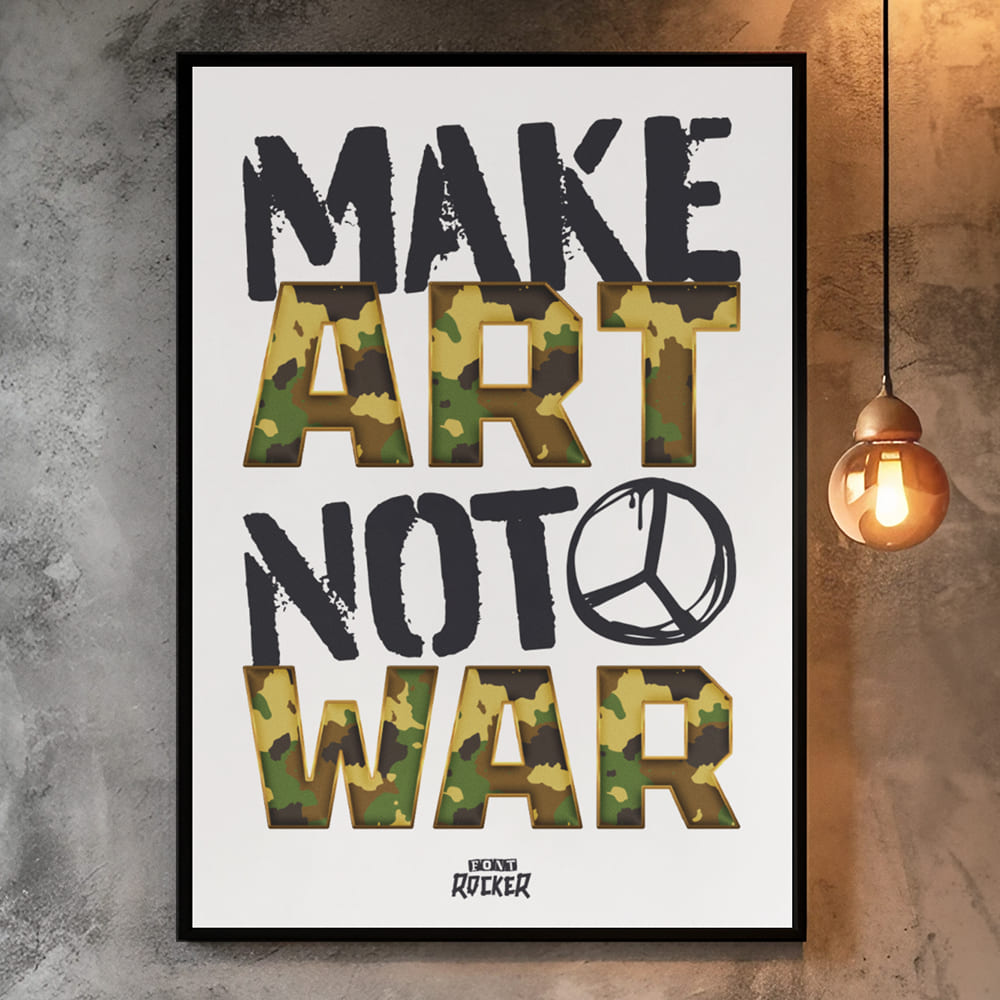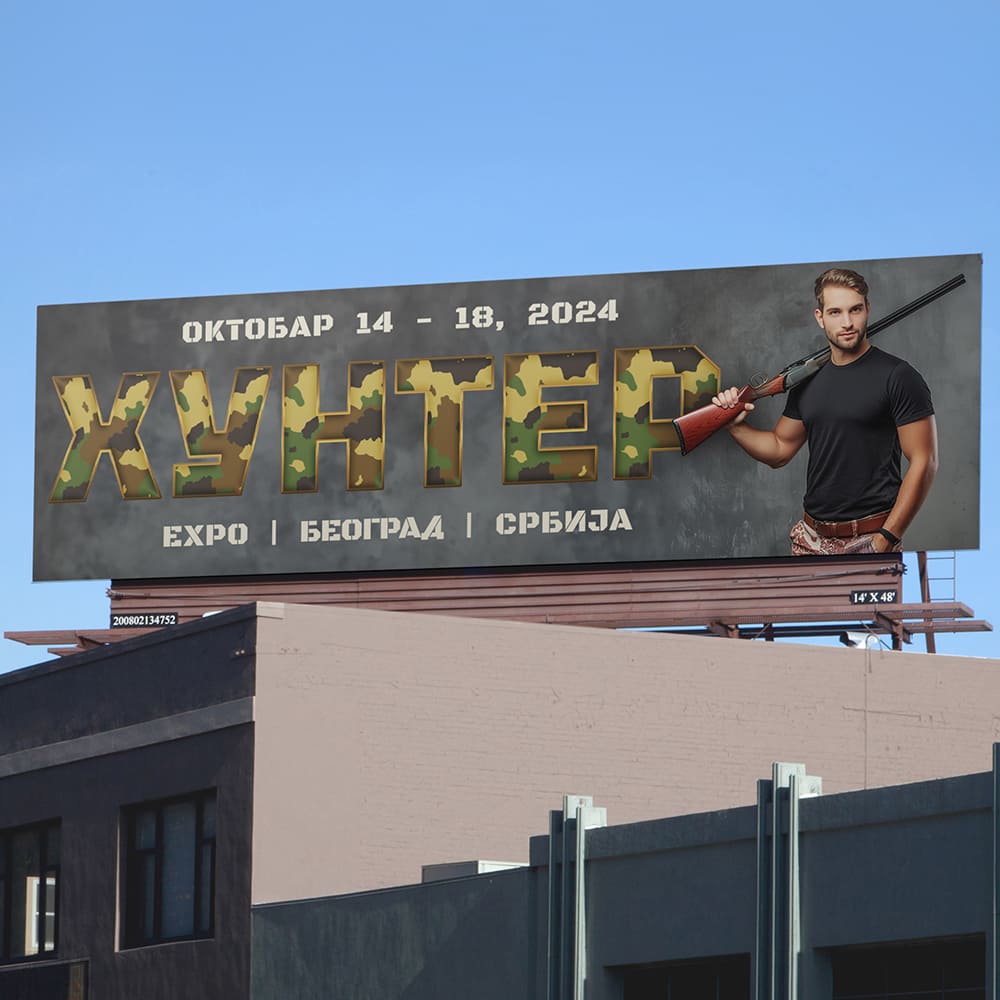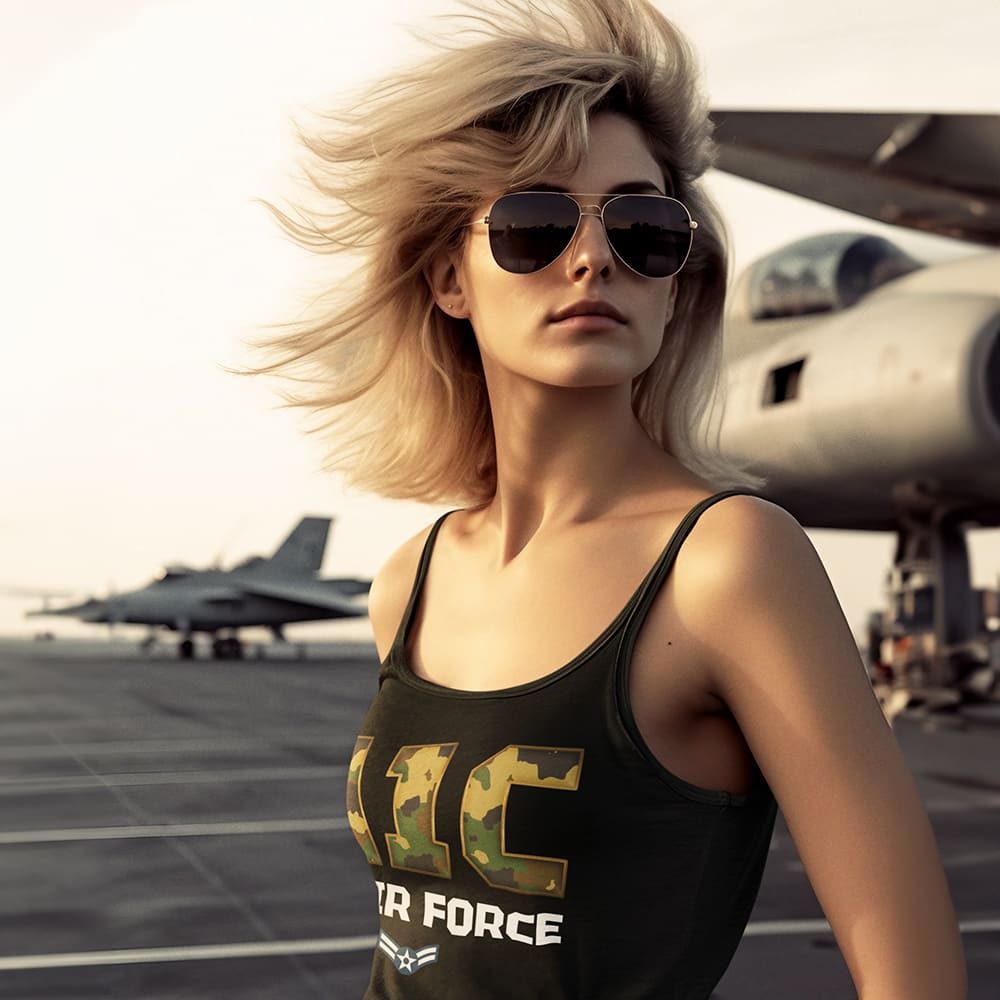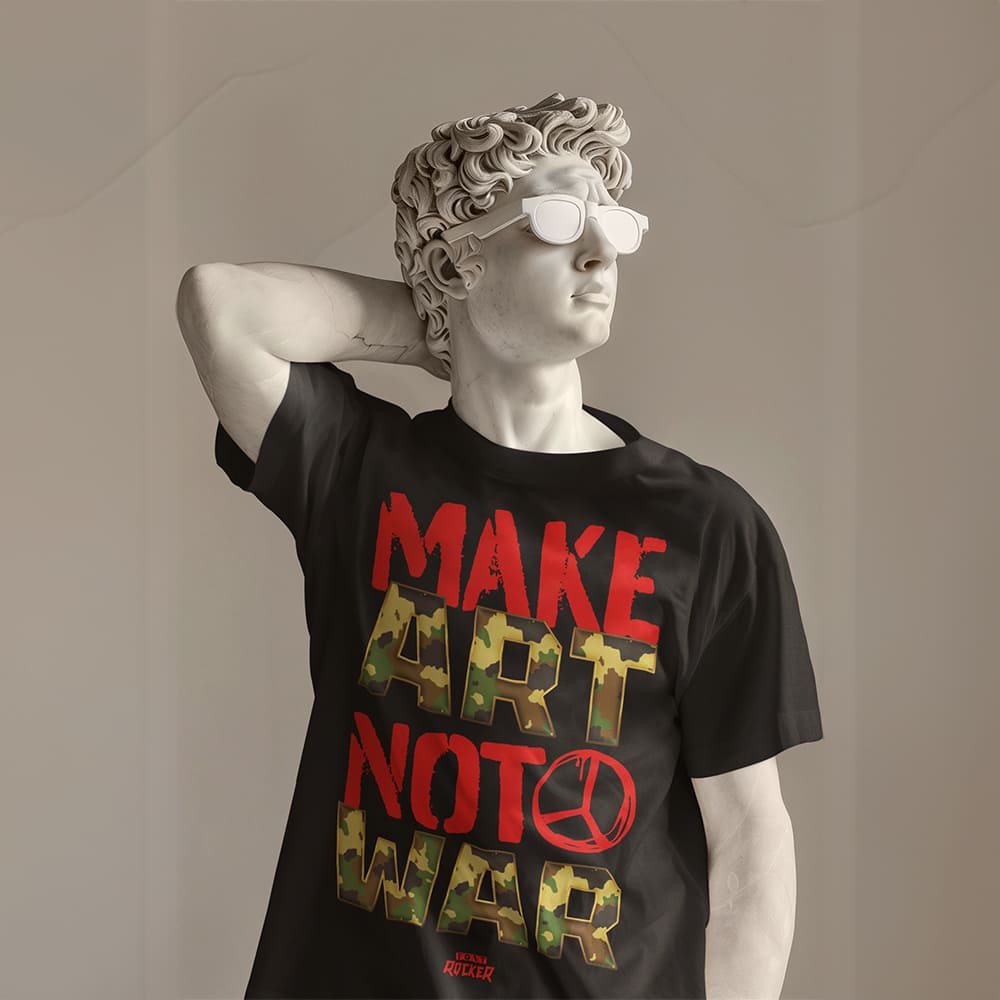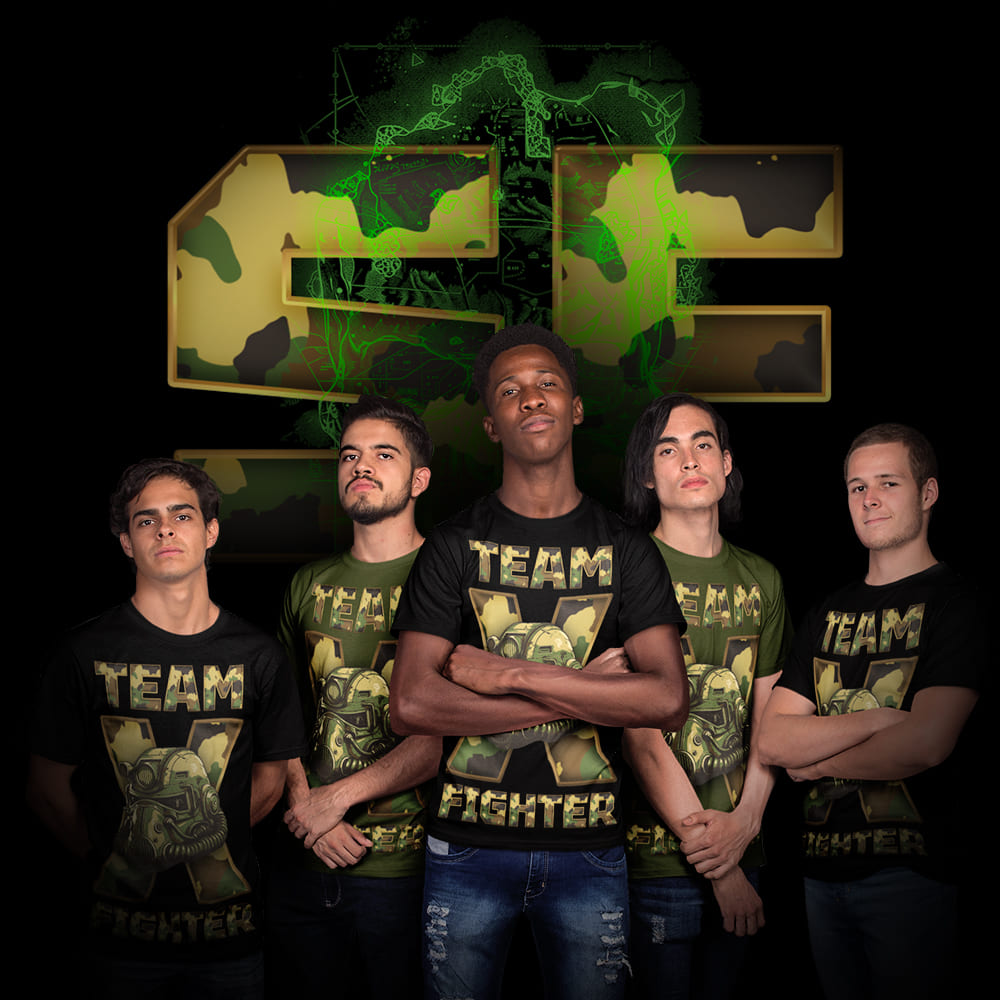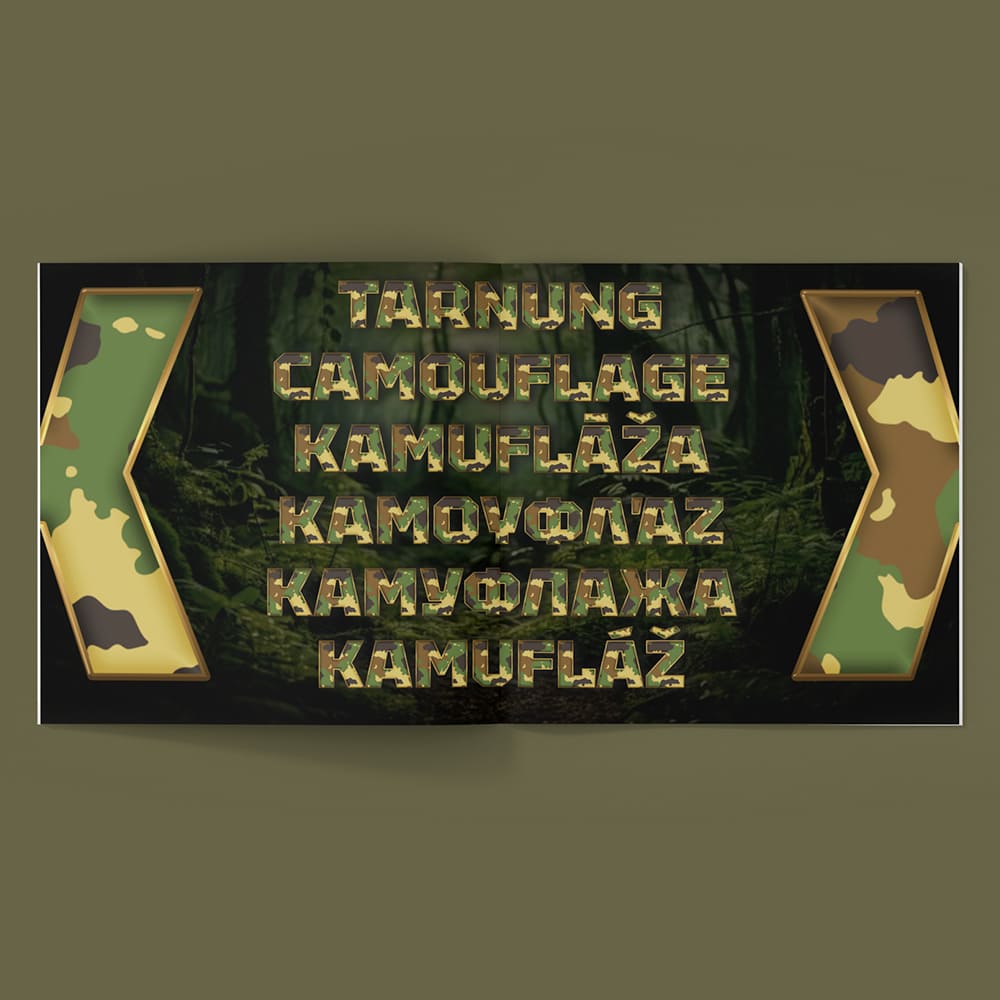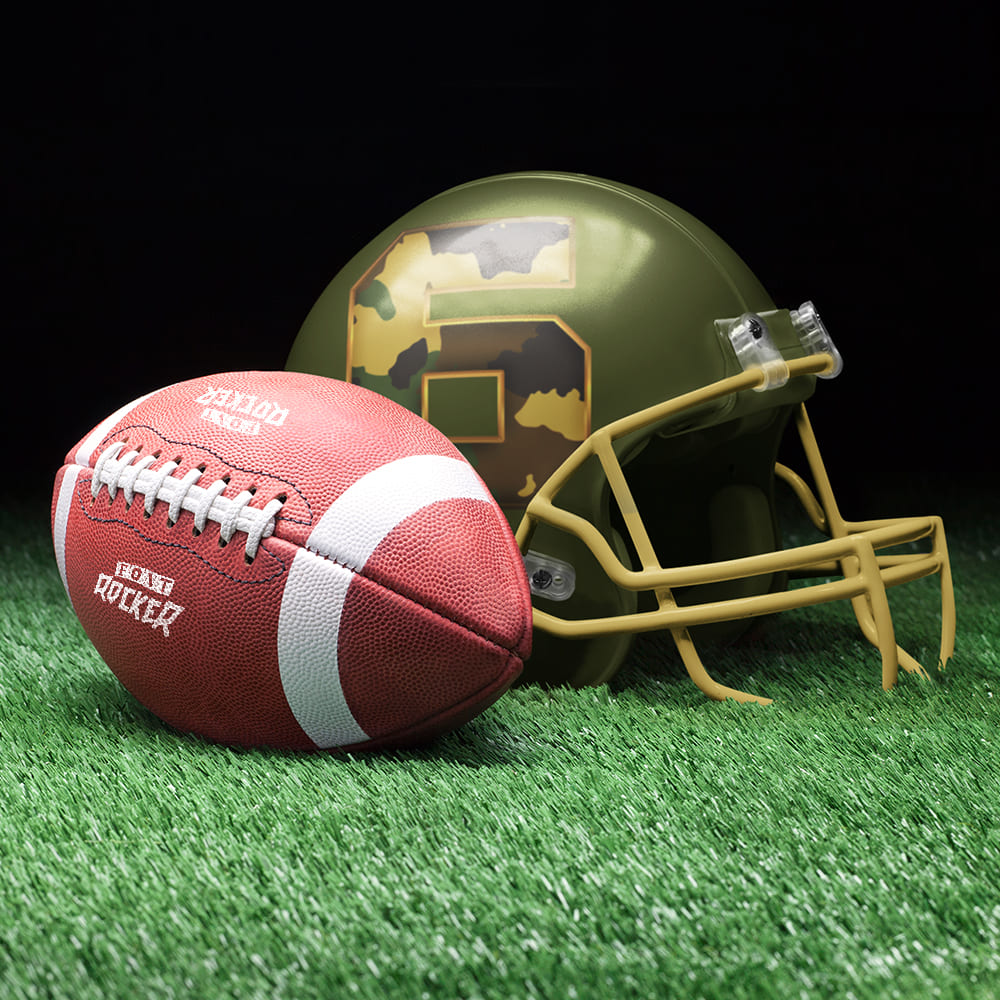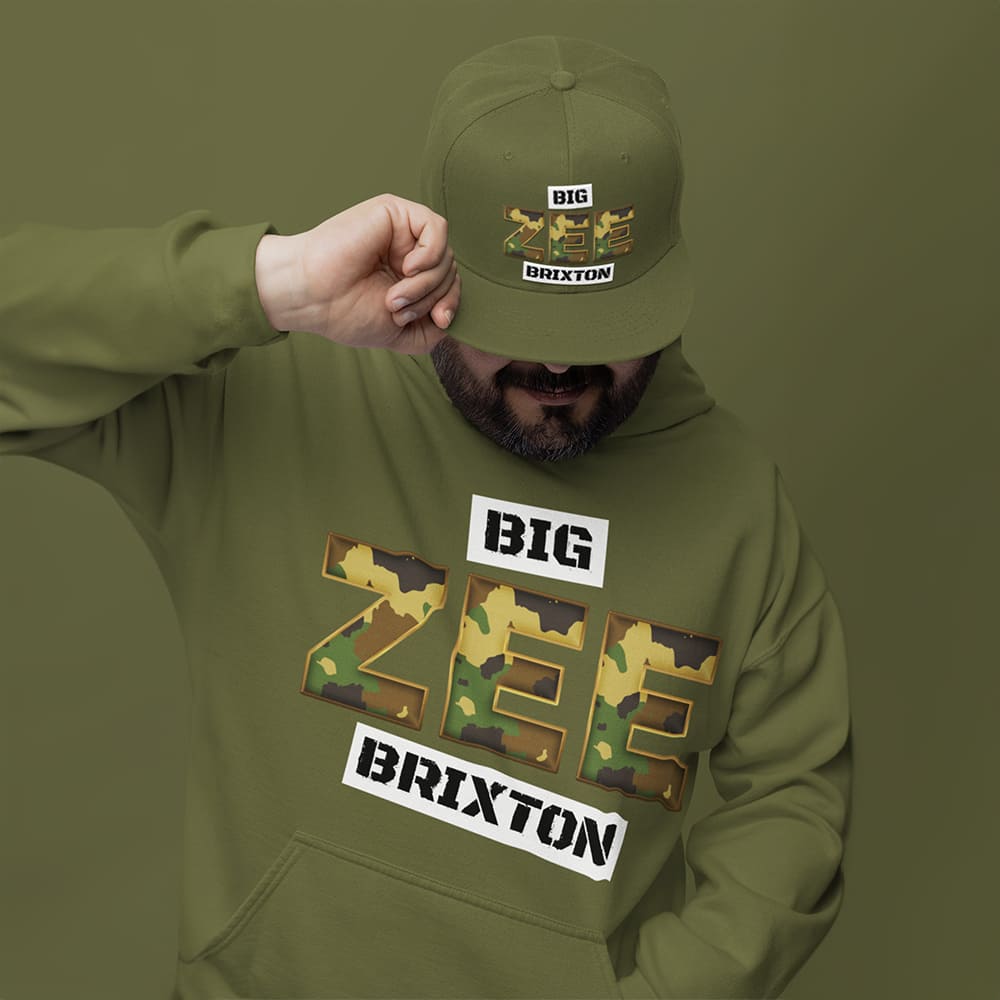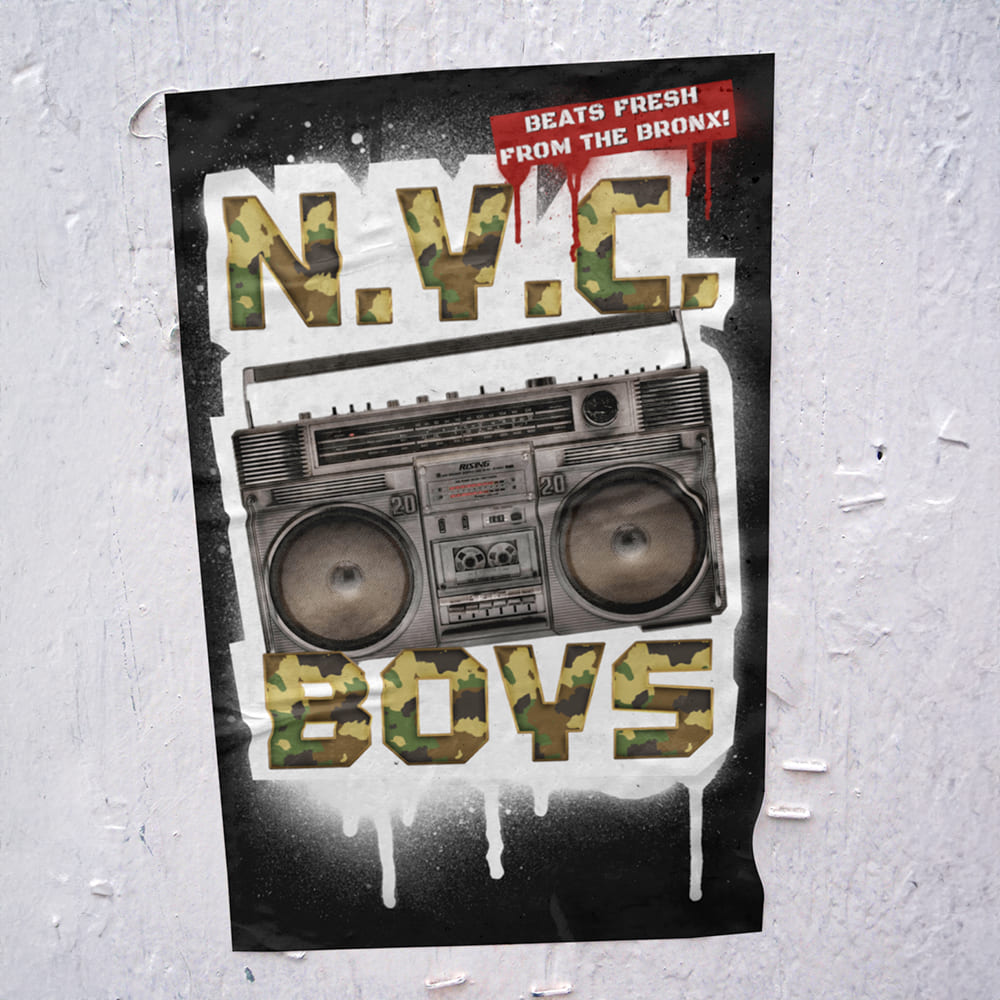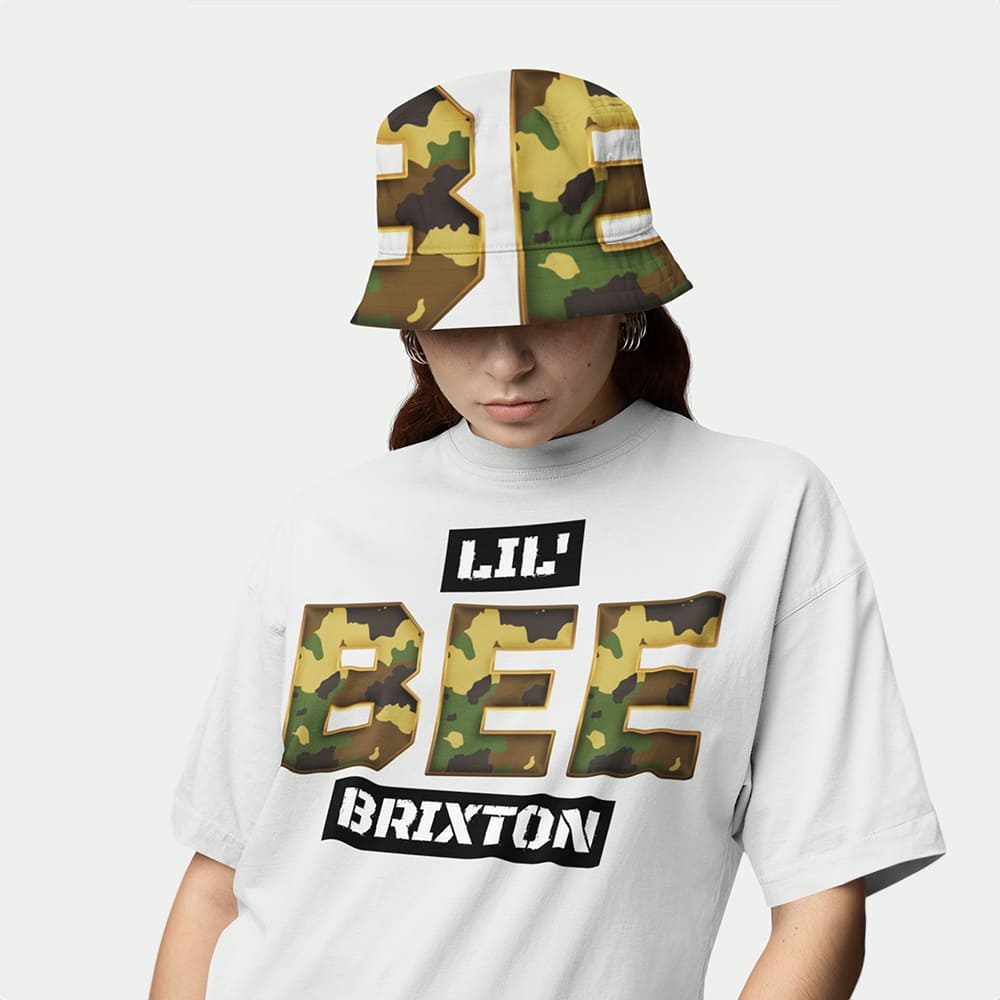
Woodland Camouflage Font
Tactical, Rugged, Unstoppable βοΈππ‘οΈ
Whether deep in the jungle, on the battlefield, or in the heat of a paintball match β woodland camouflage is the pattern of true warriors. The Woodland Camouflage Font brings this bold aesthetic to your designs, combining military vibes with pure action style. Perfect for those who play to win!
Why Choose the Woodland Camouflage Font?
πΉ Rugged & bold β Inspired by the legendary camouflage patterns seen in Predator and worn by the A-Team, this font embodies adventure, risk, and survival instinct.
πΉ Perfect for action & adrenaline β Whether for paintball tournaments, military events, outdoor branding, or gaming designs β this font screams action!
πΉ Tactical look, highly versatile β From survival gear to streetwear, this fontβs authentic woodland design gives any project a bold, powerful edge.
Make a Statement with the Woodland Camouflage Font
Make your design tough, battle-ready, and unforgettable! This font is built for those who love action, the outdoors, and military style.
πΉ Stay tactical. Stay wild. Be a Predator.
πΉ Choose Camouflage. Choose Action. Choose the Woodland Camouflage Font.